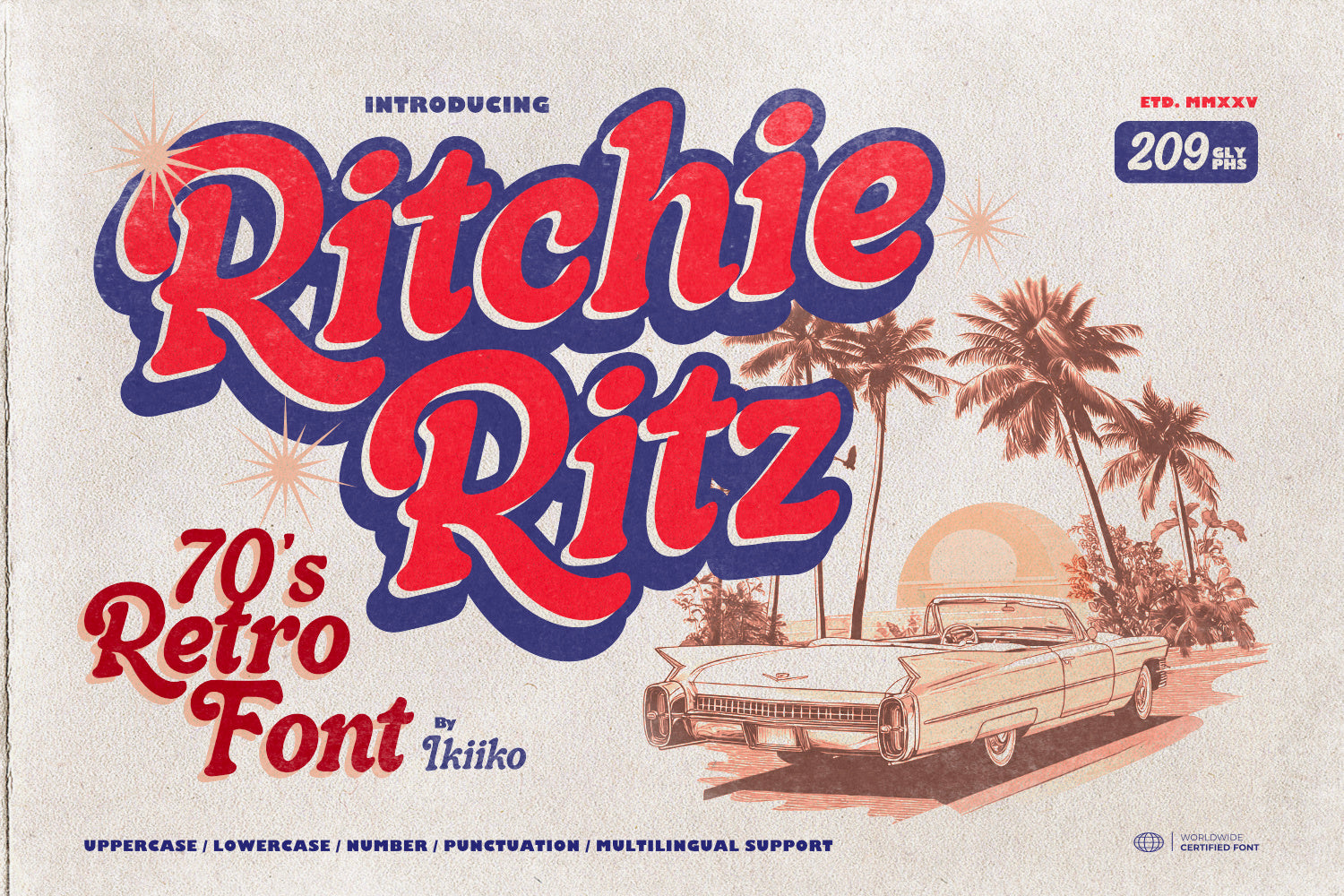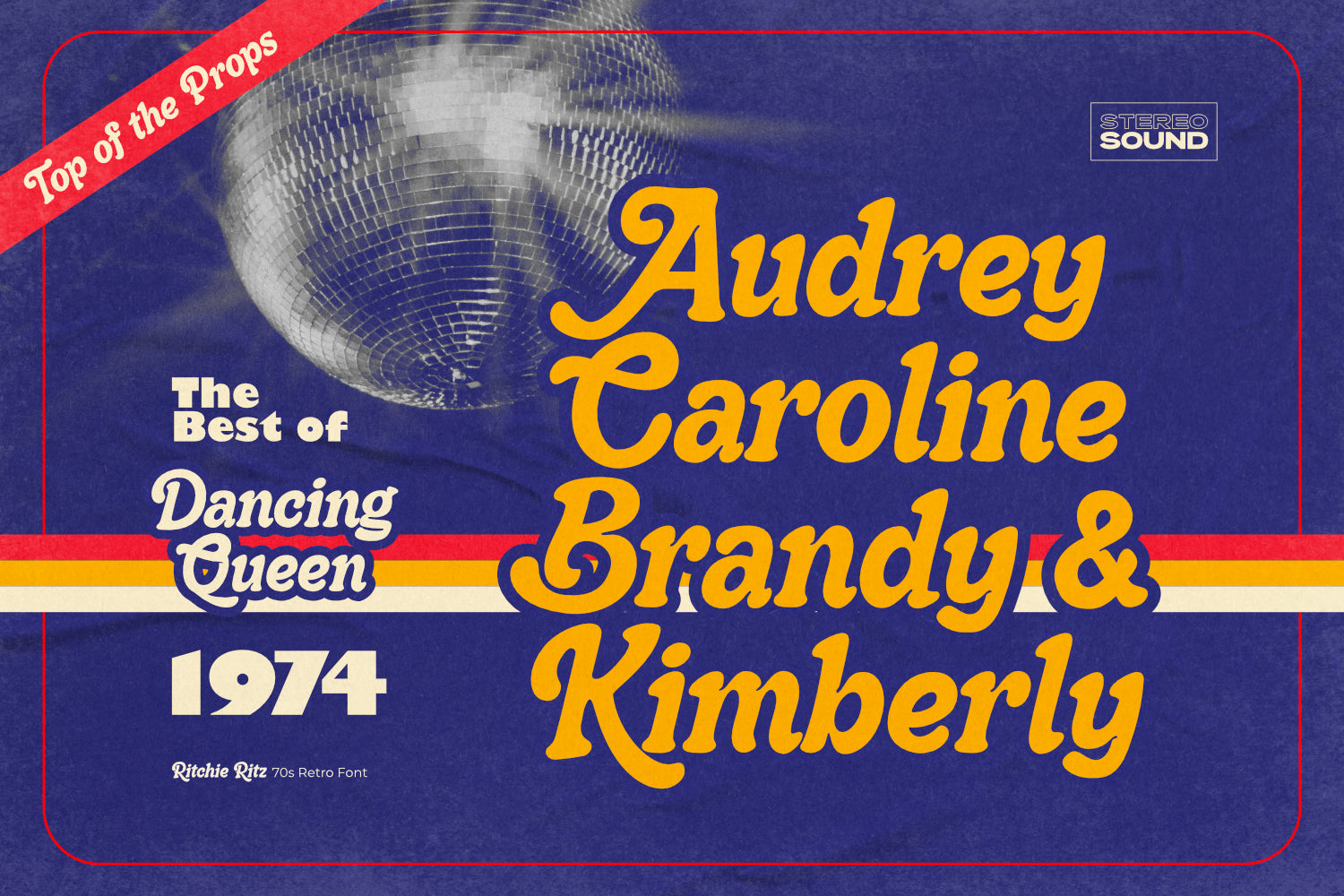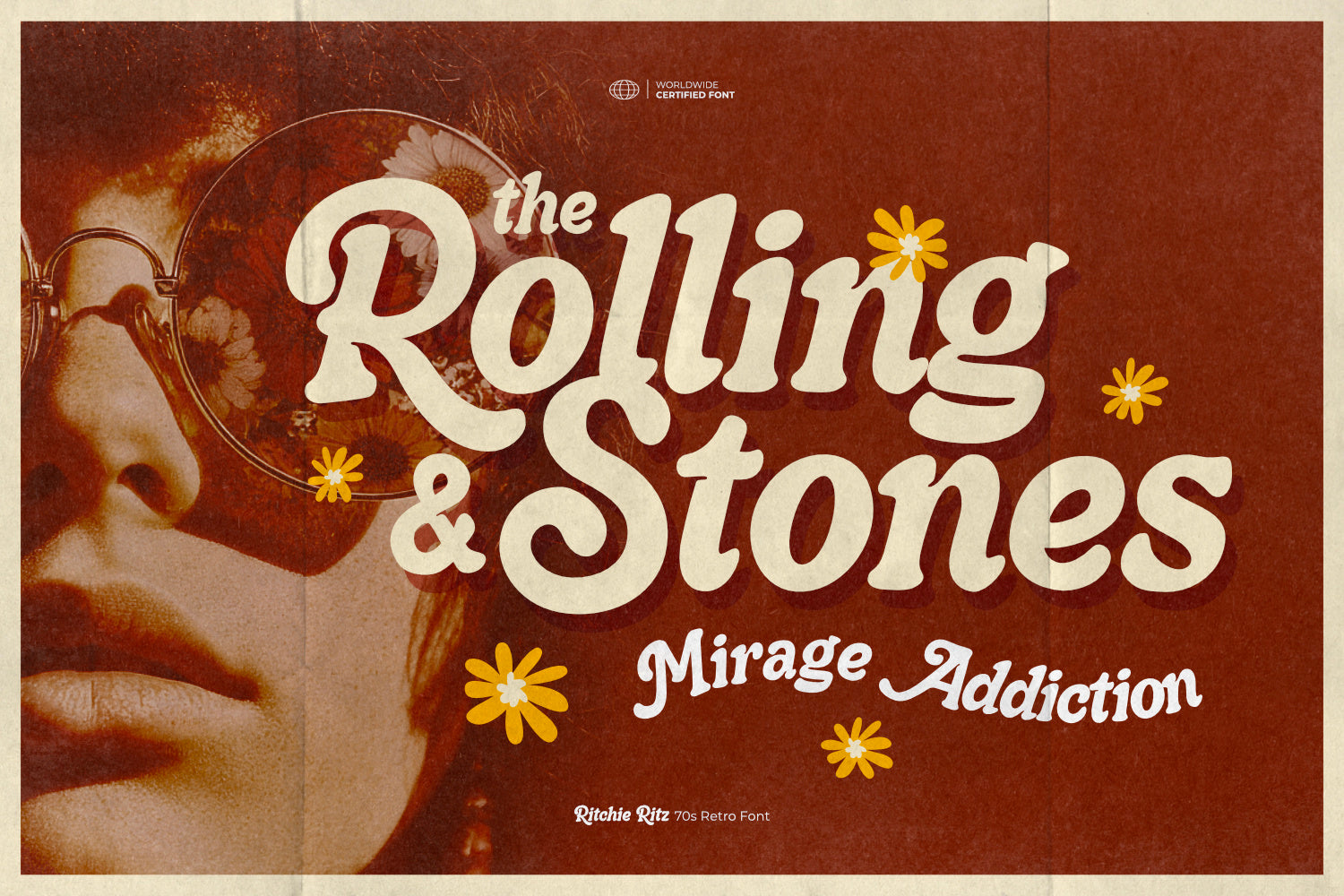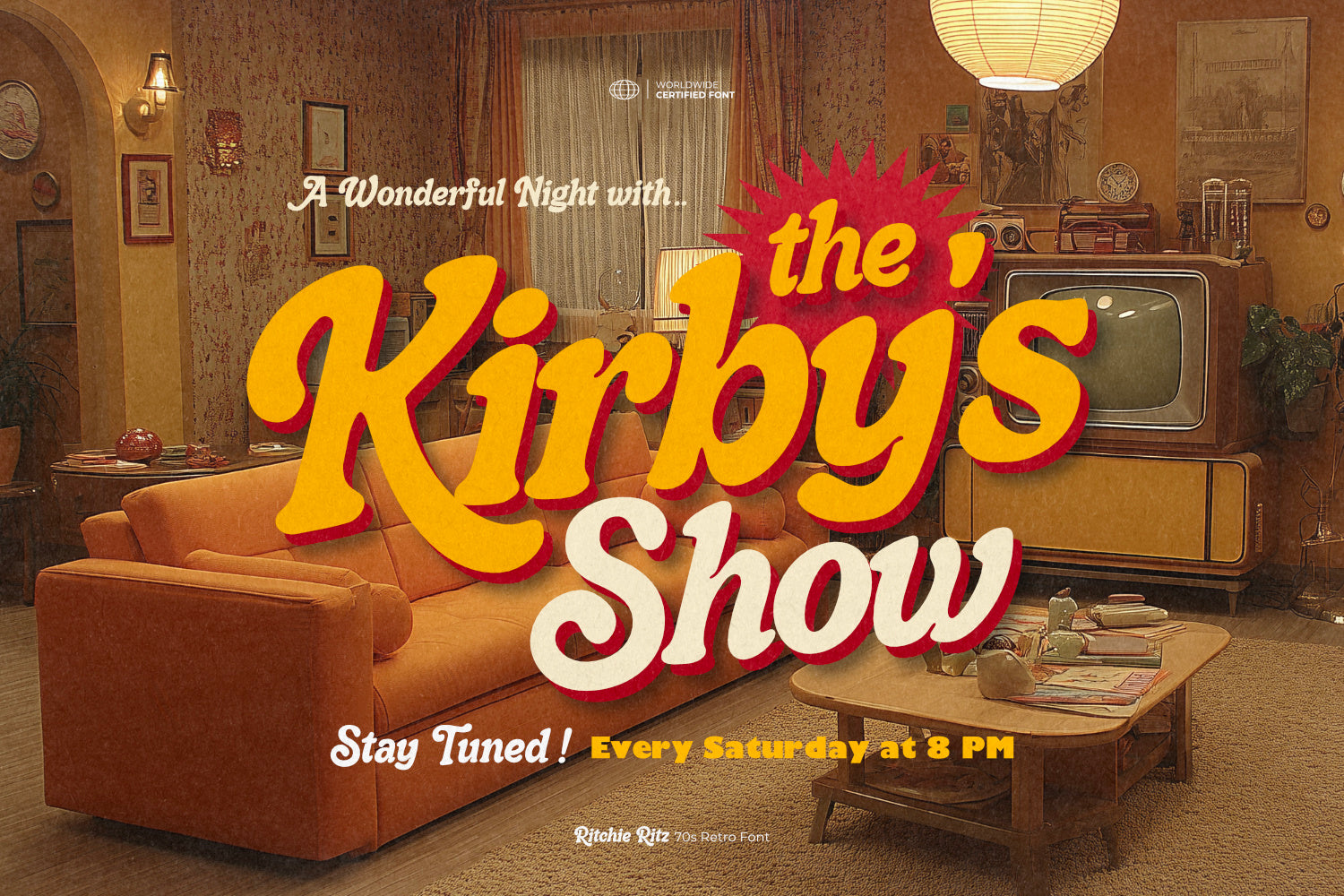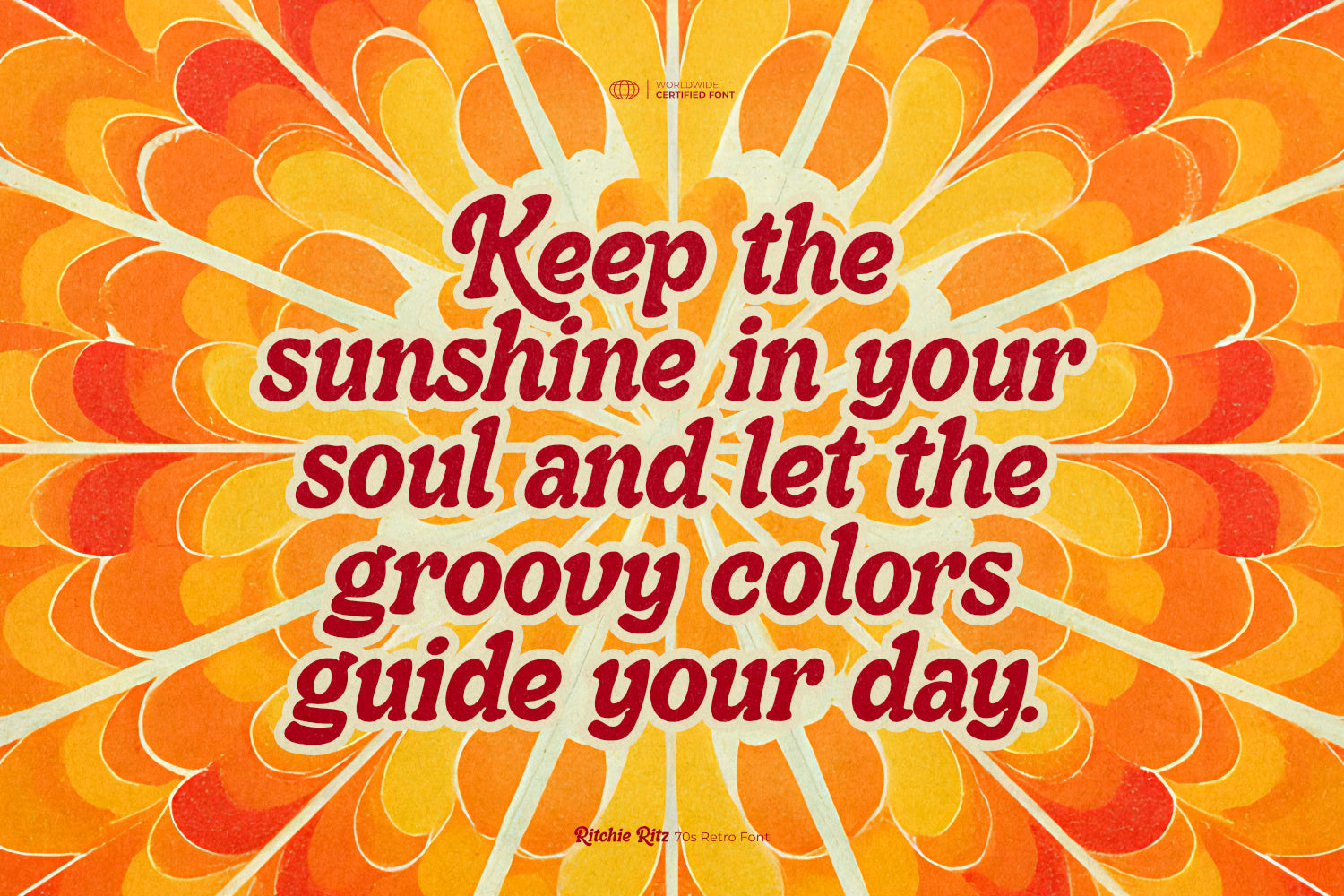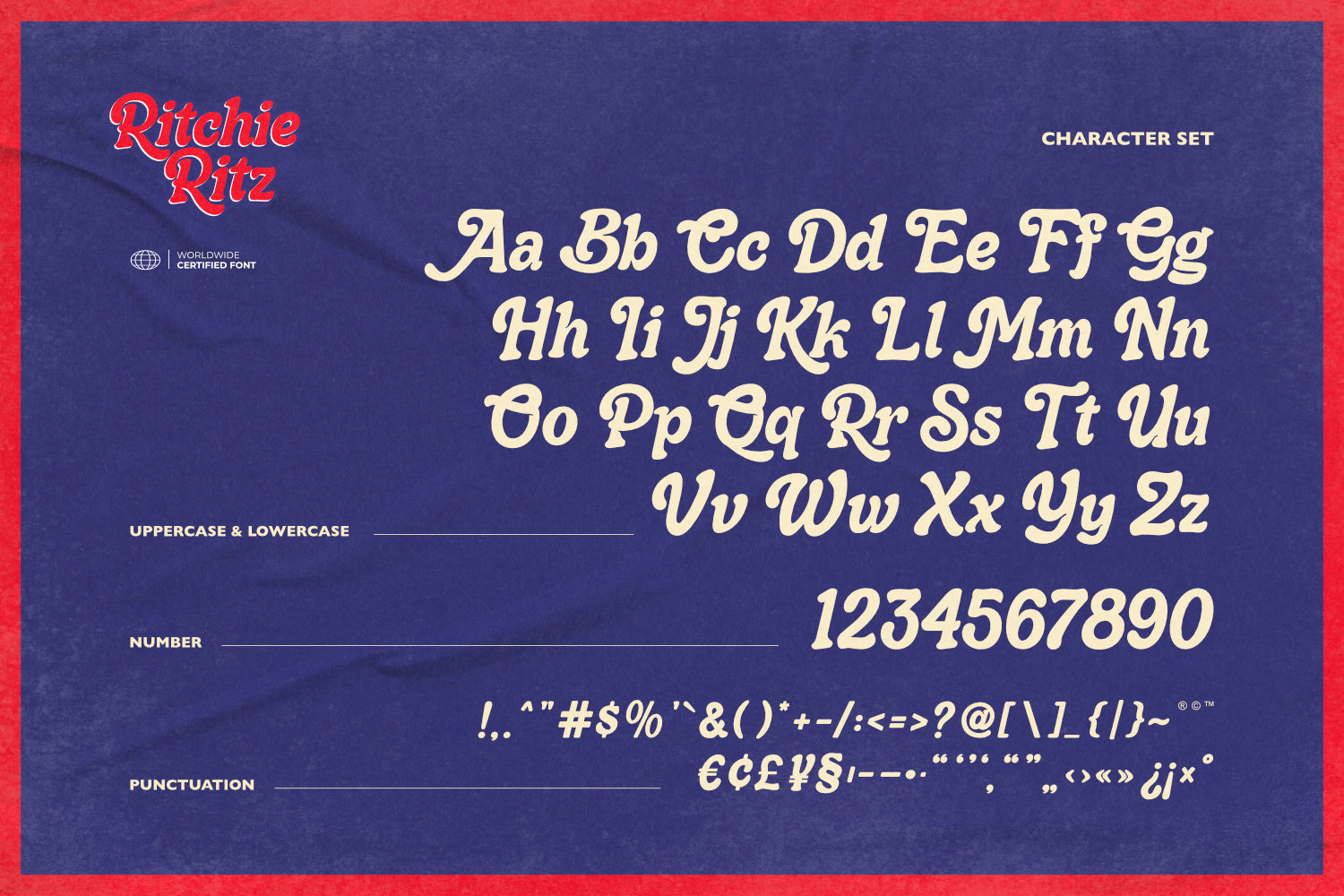
Proudly Present Ritchie Ritz - 70s Retro Font, created by ikiiko.
Ritchie Ritz, a dazzling 70s Retro Font that captures the spirit of a golden era—where bold stage lights met funky flair, and everything oozed pop style and fun. This typeface isn’t just a font—it’s a full-blown vintage show in letterform, tailor-made for eye-catching headlines, striking ads, or nostalgic brand identities.
With every curve and stroke, Ritchie Ritz evokes the soul of the classic retro aesthetic—an era where optimism, rhythm, and freedom defined the visual culture. Think neon signs, groovy posters, and endless summer vibes. Whether you're crafting a retro rebrand, designing merchandise, or promoting an event that echoes the American Dream, this font brings charisma, attitude, and timeless charm.